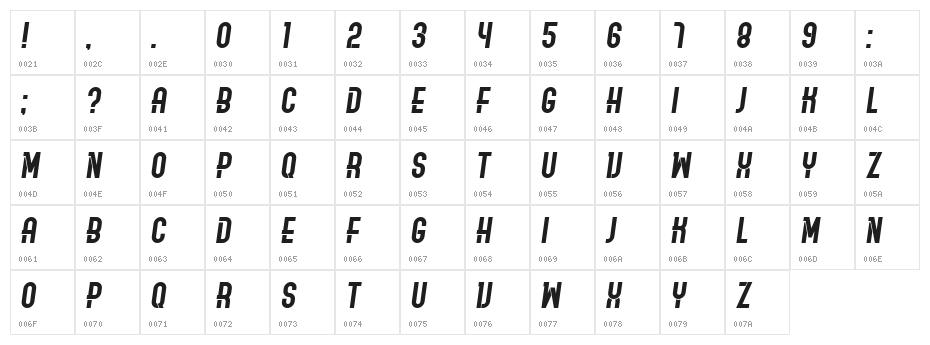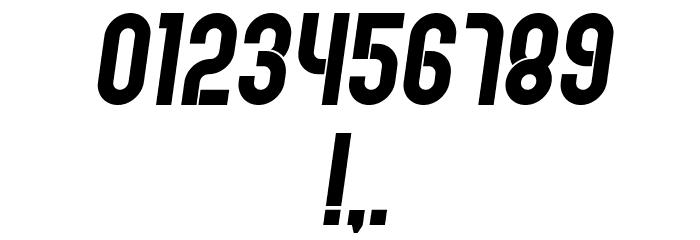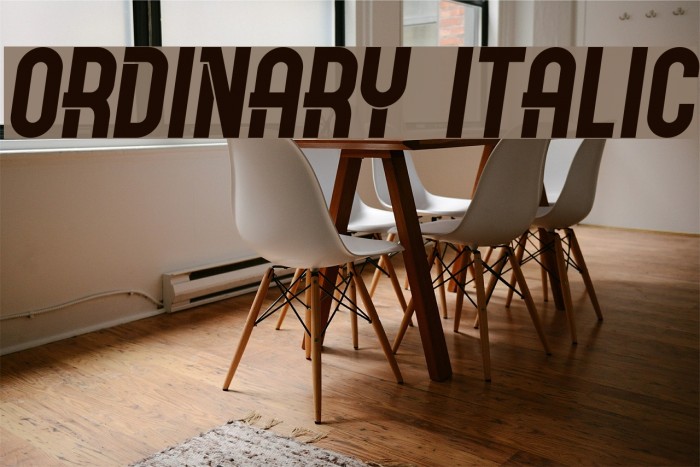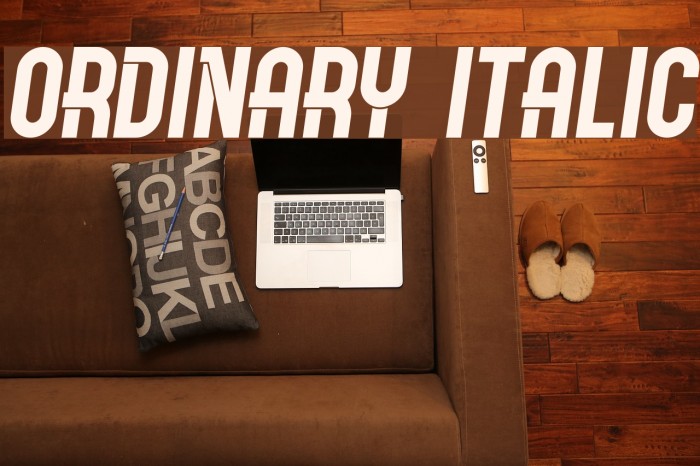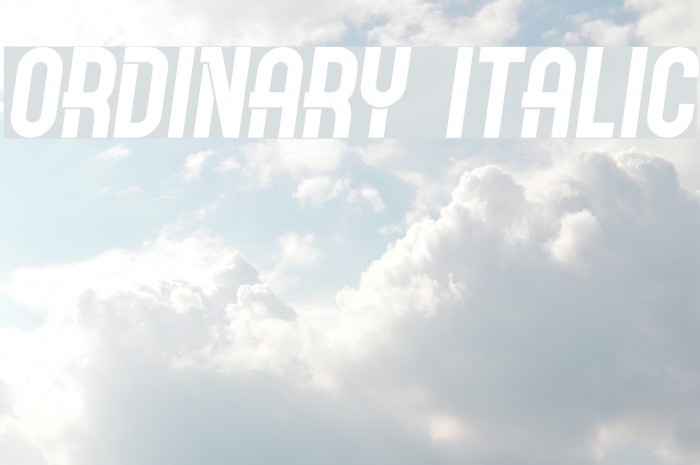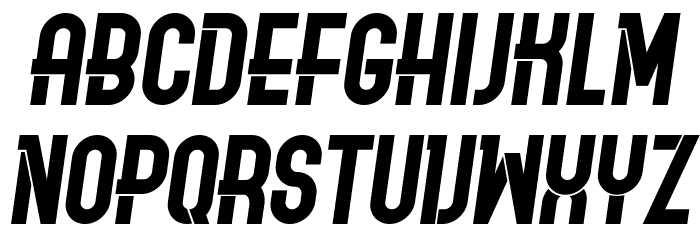
Ordinary Italic Font
Ordinary Italic Description
This font features a bold and dynamic style with a distinct italic slant, giving it a sense of motion and energy. The characters are robust and slightly condensed, creating a compact appearance that enhances readability while maintaining a strong visual impact. The uppercase and lowercase letters are consistent in their design, with smooth curves and sharp angles that contribute to a modern aesthetic. The numerals and punctuation marks are equally bold, ensuring they stand out clearly in any context. This font's unique style makes it suitable for a variety of applications where a contemporary and assertive look is desired.
| Proposed Projects | Ideal for branding, advertising, sports team logos, and dynamic headlines. |